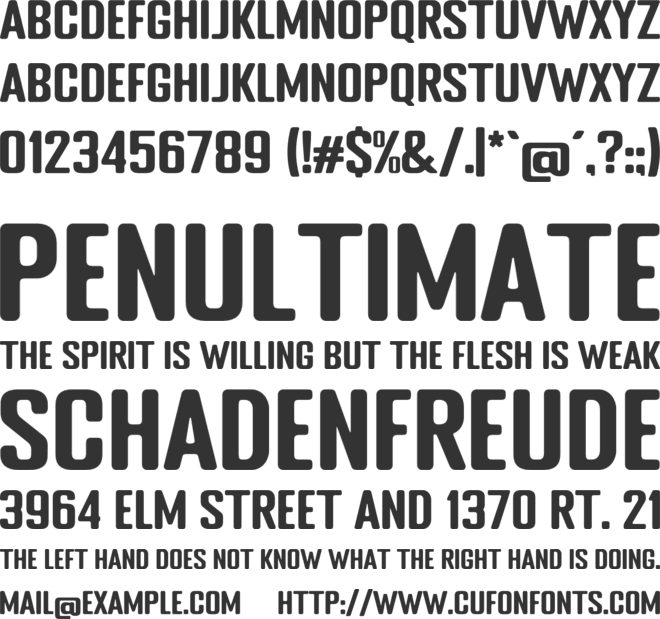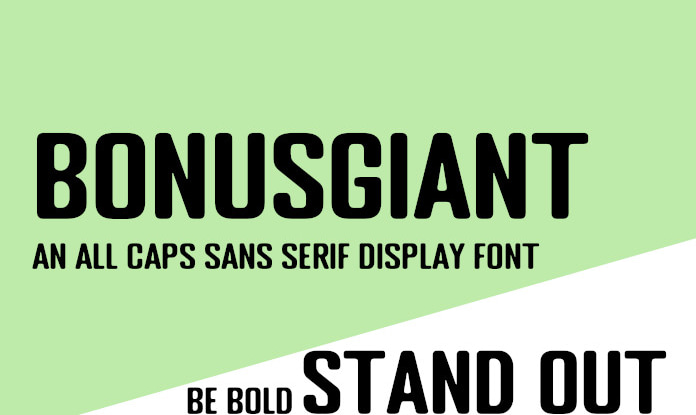
Bonus Giant Font
Billy Giant
A bold, all caps sans serif font created for the Bonus Giant casino review and rating network. Bonus Giant is a world recognised casino bonus portal offering expert reviews and handpicked promotions - https://bonusgiant.com - Suitable for branding, packaging, headings and more, this font is free to anyone to download and use without payment for any online projects, both personal and commercial.